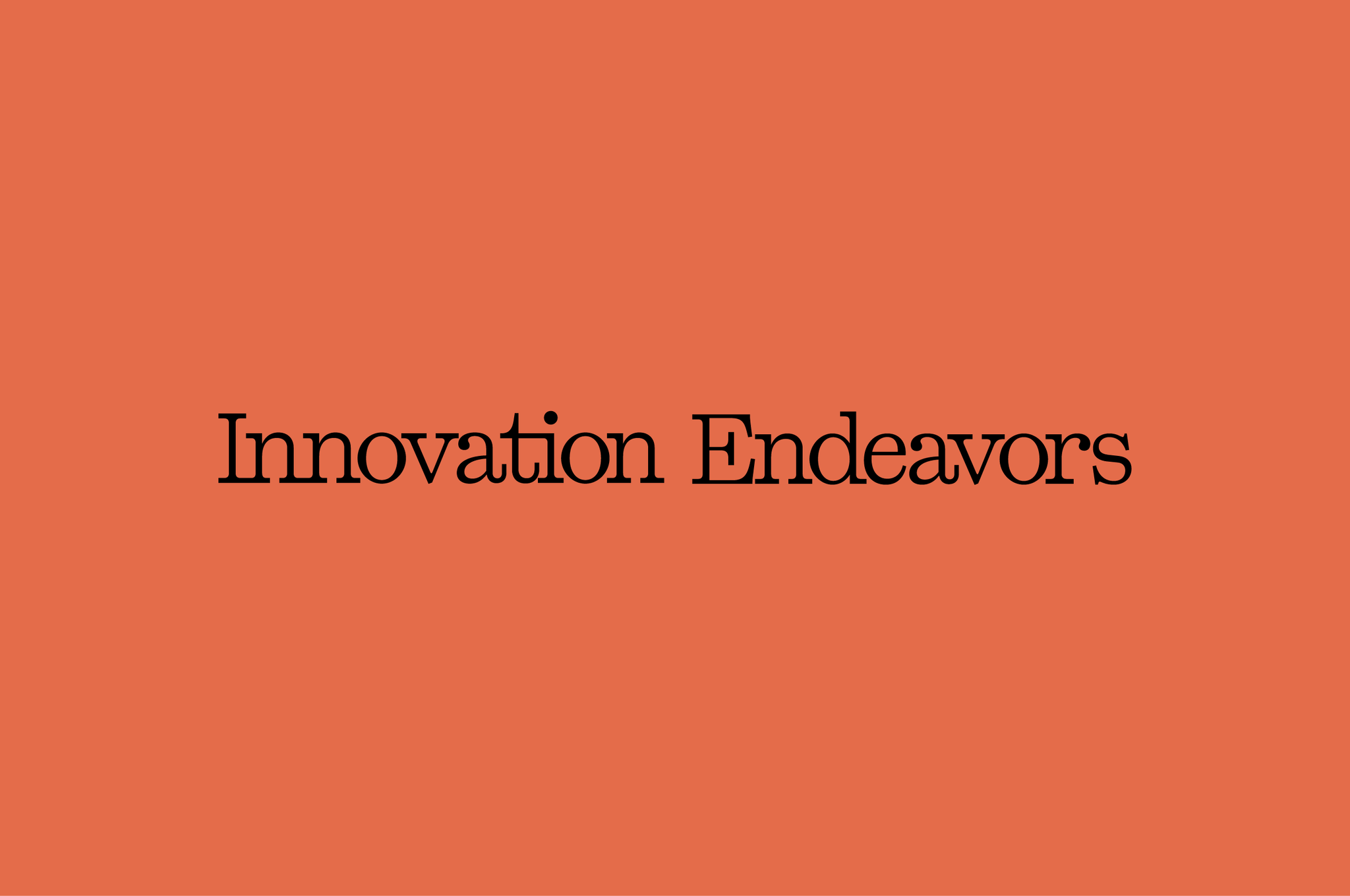
Ten years after building the original identity, it was time to let the brand catch up to the firm Innovation Endeavors has become.
Ten years after creating the original identity, we returned to Innovation Endeavors with fresh eyes and a clear mandate: build a brand that matches the firm they’ve become and the work they’re doing to shape what comes next.
When we first worked with Innovation Endeavors, the firm was still defining itself. The identity we built served that moment well, giving them a foundation to grow into. A decade later, they’ve done exactly that. The portfolio has deepened, the perspective has sharpened, and the firm has earned a reputation that the original brand no longer fully expresses.
This wasn’t a rebuild from scratch. It was a refinement, deliberate and precise, rooted in what already worked. We updated the visual language to carry more weight, brought greater clarity to how the brand shows up across contexts, and created a system flexible enough to grow with them through the next decade.
An evolution, not a rebuild. The original identity did its job well, but the fund has matured and its portfolio has grown more ambitious. The updated system trades early-stage energy for something more composed. Elegant, quieter, and built for where Innovation Endeavors is going next.
The symbol stayed. Nearly a decade of equity lives inside it, and it still holds up. Rather than reinvent, we preserved it as the anchor of the system and rebuilt everything around it. Recognition is hard-won, and this mark has earned it. The original blue and green stayed at the core. We pulled the saturation back and expanded the range around them, trading bright and technical for refined and mood-driven. The result reads as considered rather than corporate, with enough range to move between quiet and confident.
The previous wordmark leaned technical. This one leans elegant. Cleaner letterforms, better proportions, and a rhythm that sits closer to an old imprint than an engineering firm. It reads like the fund thinks: precise, but never cold. The site had to hold two things at once: the seriousness of an established fund, and the ingenuity of the companies it backs. We built a sleek, quiet framework and let illustration carry the character. The result feels like a firm you’d trust with a company, and one you’d want in the room while building it.
We created a ruled-line system to give the typography a place to live. Inside it, Kyoto does the heavy lifting. It anchors each composition with editorial weight, while the lines hold everything in place beneath it. The pairing gives the brand a rhythm closer to a masthead than a slide. A four-part grid built for impact. It gives the brand a structural language that can hold anything from a single quote to a full portfolio spread, and gives designers a clear way to build hierarchy without losing composure. Simple bones, strong presence.
Illustration is where the brand gets to feel. Hand-drawn linework, loose but intentional, carrying the curiosity and optimism of the founders Innovation Endeavors backs. It softens the system and gives the fund a voice that reads warm without losing weight. The old illustration system was built around circles, moons, and orbits. The new one keeps the circle and lets the rest go. It reappears throughout the linework as a fixed point, a quiet anchor threading one era of the brand into the next.